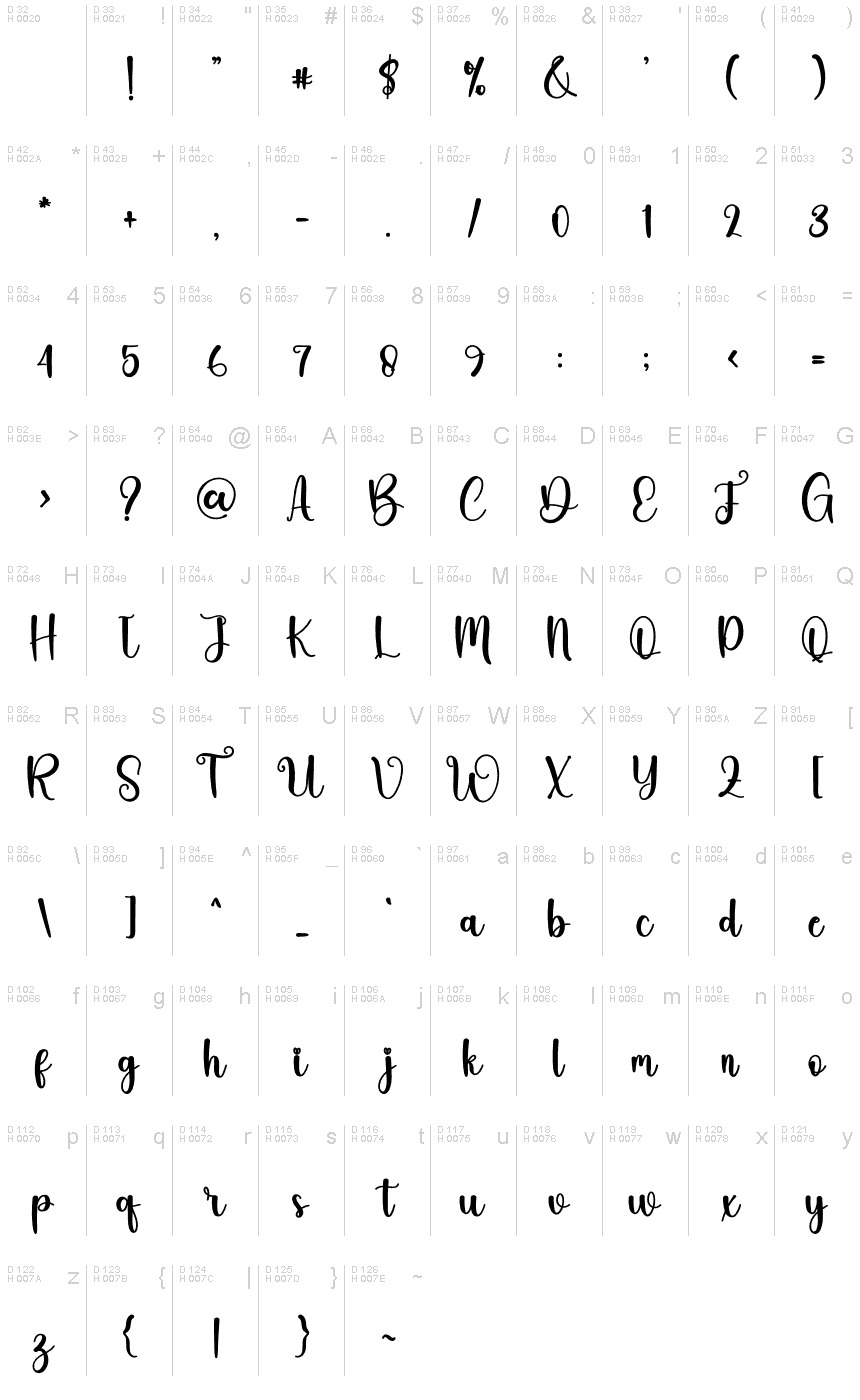
Unicorn Farmhouse
Unicorn Farmhouse, designed by Inermedia Studio, is an exquisite calligraphy font that exudes elegance and creativity. Its flowing strokes and delicate curves make it perfect for wedding invitations, greeting cards, and feminine branding projects. This versatile semi-bold font adds a touch of sophistication to fashion magazines, beauty blogs, and lifestyle websites. With its wide range of weights – from thin to bold – Unicorn Farmhouse is also suitable for logo design, product packaging, and social media graphics. Let your imagination run free with this enchanting typeface that brings a touch of magic to any project.